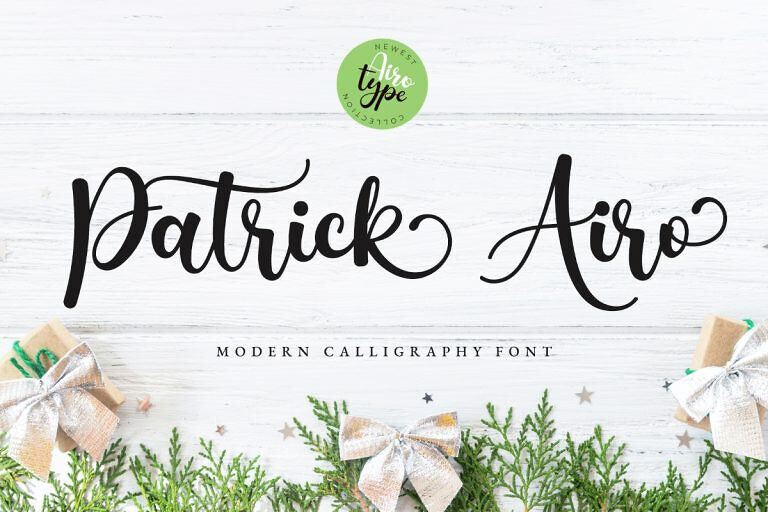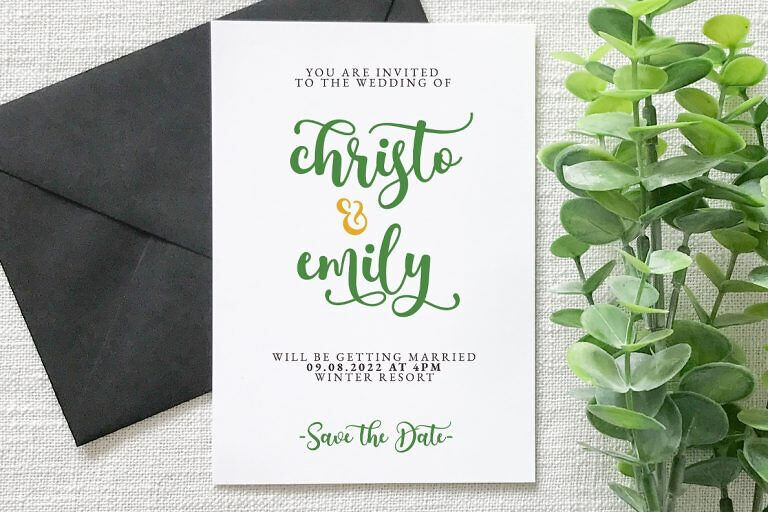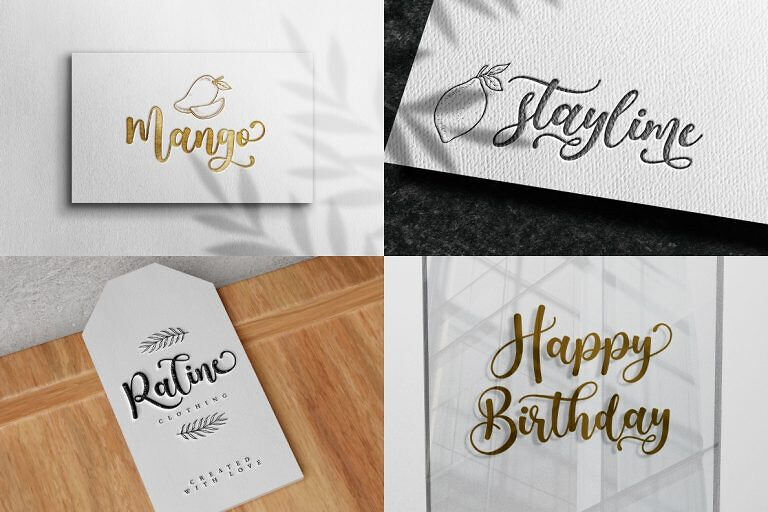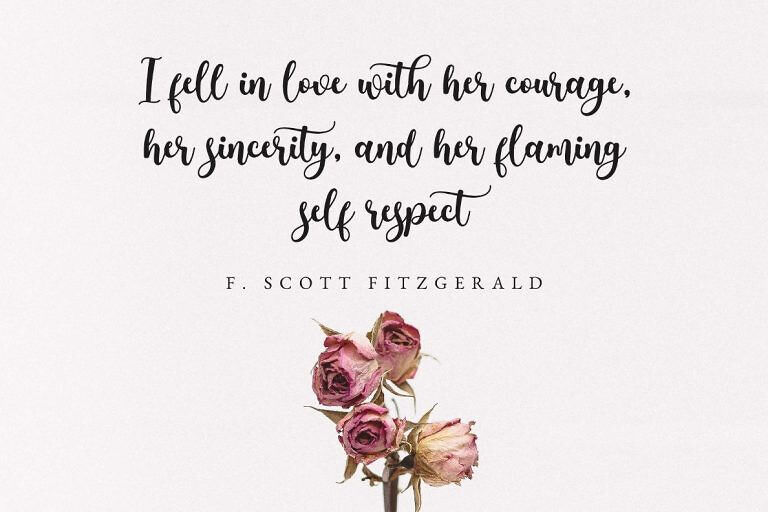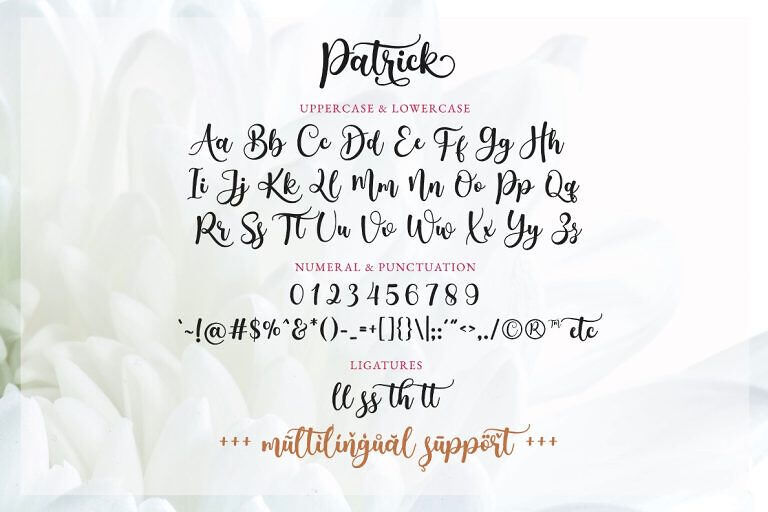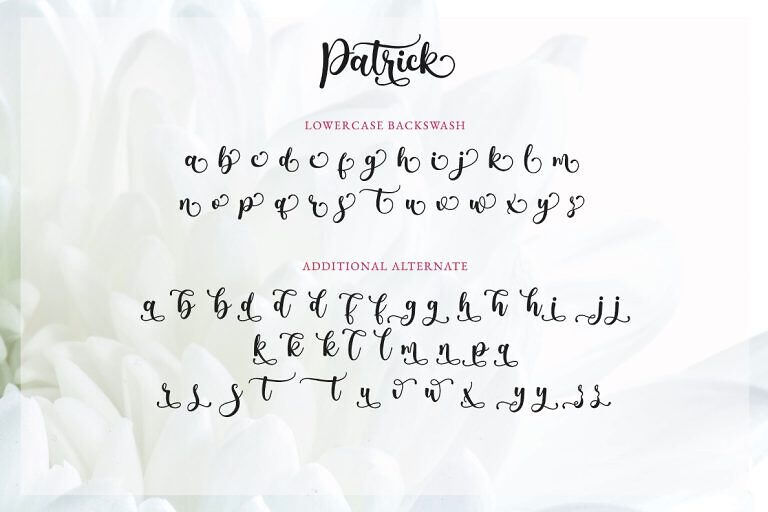
Patrick is bold and bouncy script font. It is modern, delicate, and elegant. It will enhance the the beauty of your design. Patrick is perfect font for any projects, such as wedding design, invitation, birthday, t-shirt design, crafting, sticker, sublimation, and many more.